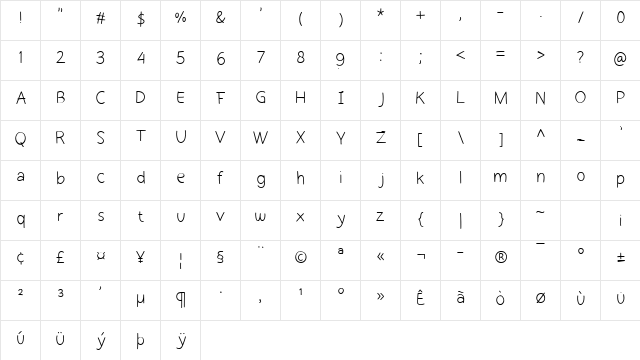
Cekerayam Regular
Design Context for Cekerayam Typeface
Cekerayam is a composed and adaptable typeface that performs quietly and consistently across a wide range of design contexts.